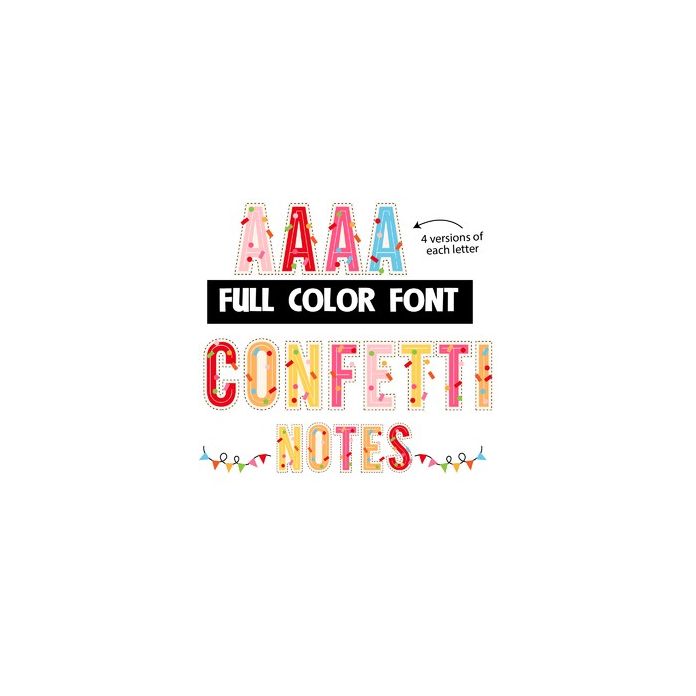
This full-color font features confetti throughout. There is a secondary upper and lowercase that you can access through Silhouette's glyph map. Type rectangle brackets to create bunting banners as used in the examples.